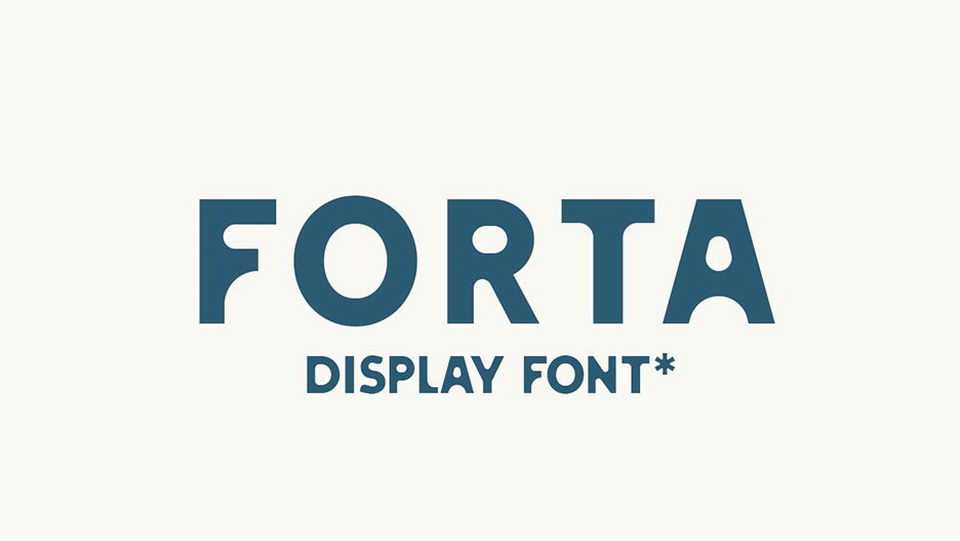
Download Forta font, an all caps display typeface, perfect for headlines, short sentences, logos, posters etc. Forta font combines sharp edges and soft curves into unique, visually appealing shapes.
Designer: Andrzej Wróż